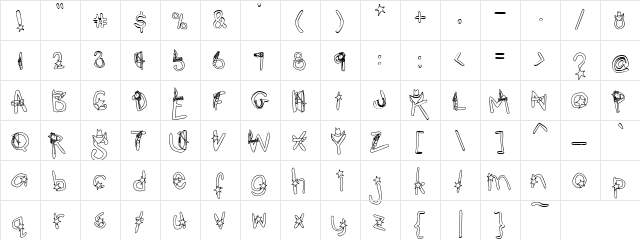
PC Playtime Regular
Design Context for PC Playtime Typeface
PC Playtime is a composed and adaptable typeface that performs quietly and consistently across a wide range of design contexts.